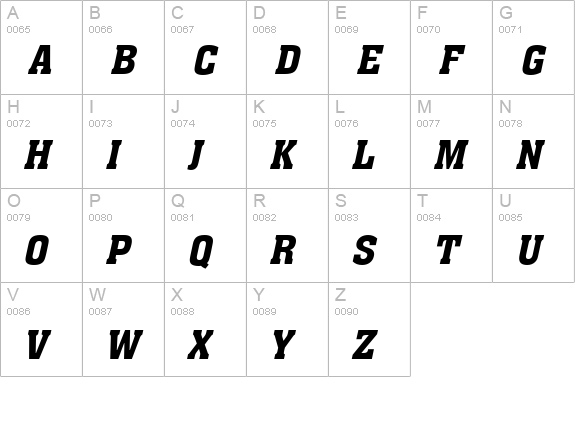
Ache BoldItalic Font Details
Ache BoldItalic is a striking and dynamic font that exudes a sense of strength and modernity. Its bold and italic design makes it perfect for creating eye-catching headlines, titles, and branding materials. The unique combination of sharp angles and flowing curves gives this font a distinct personality that sets it apart from traditional typefaces. What's even better is that Ache BoldItalic is available for free download at FontsMarket.com. This means you can easily access this stylish font and incorporate it into your designs without any cost. Whether you're working on a website, poster, or logo, Ache BoldItalic is sure to make a bold statement and leave a lasting impression. Download it today and elevate your design projects with this versatile and impactful typeface.